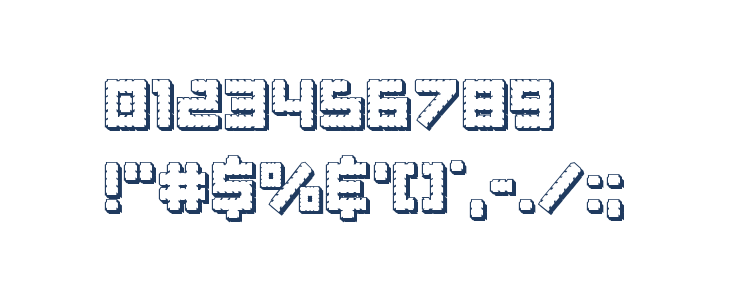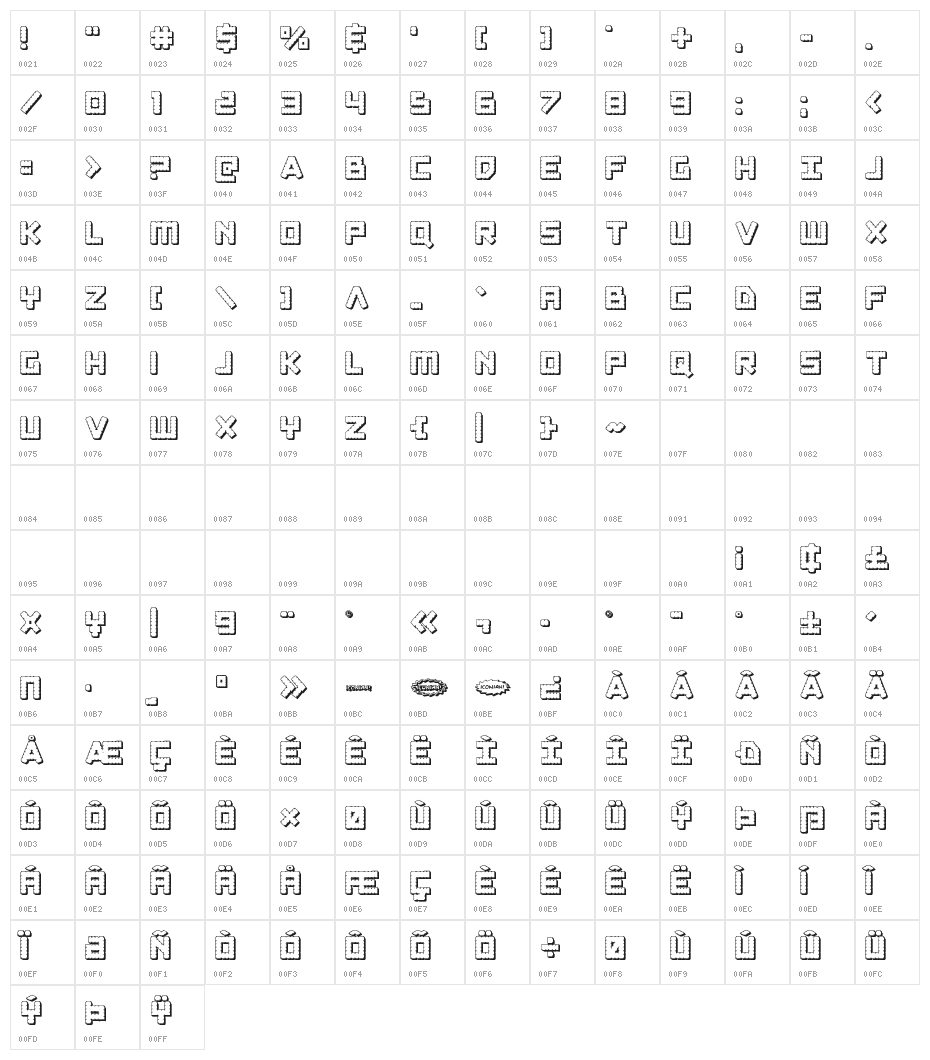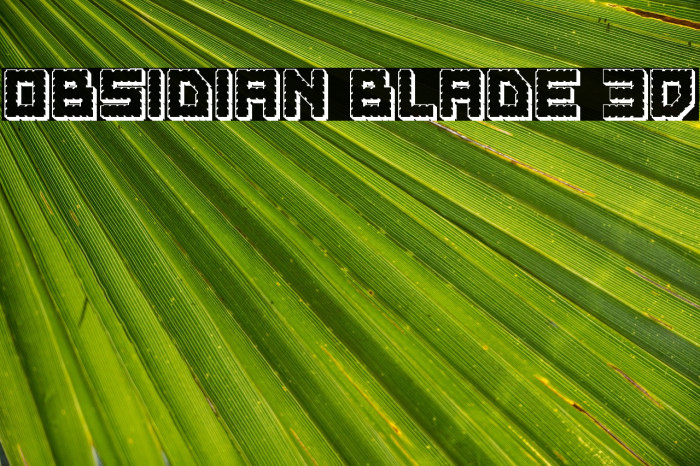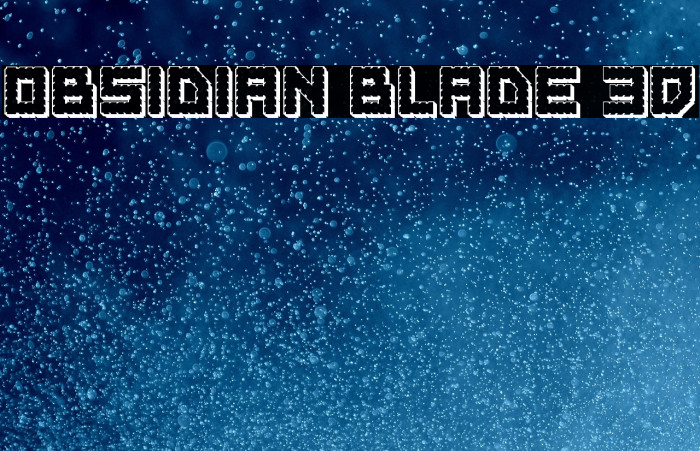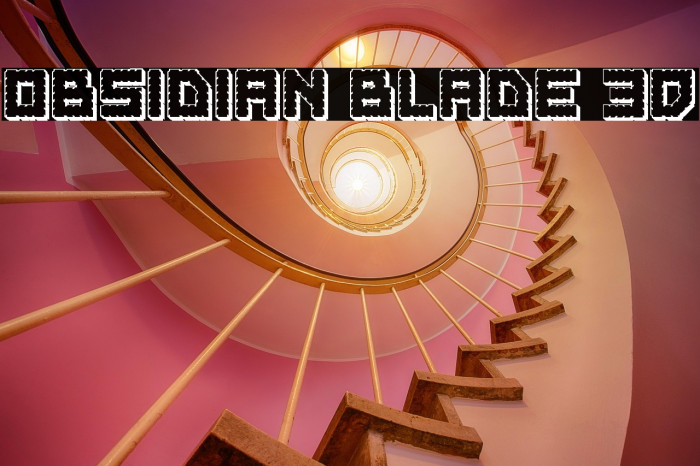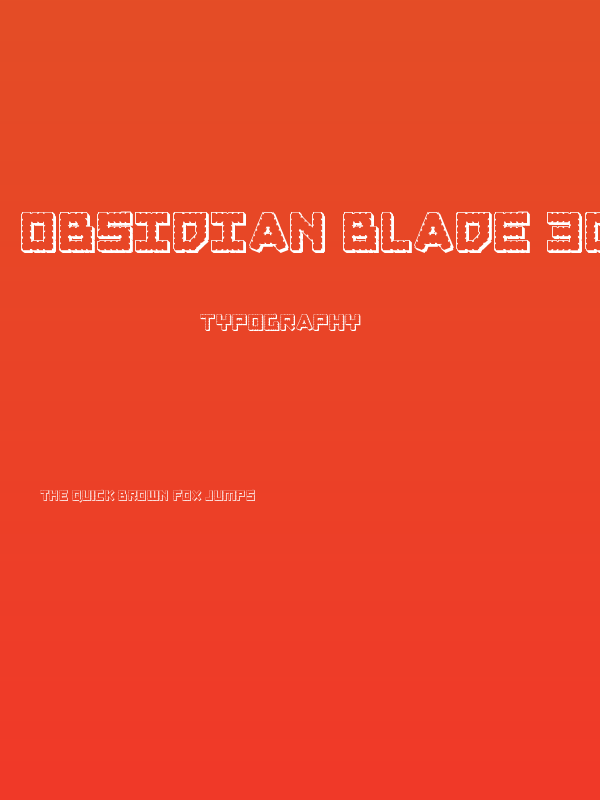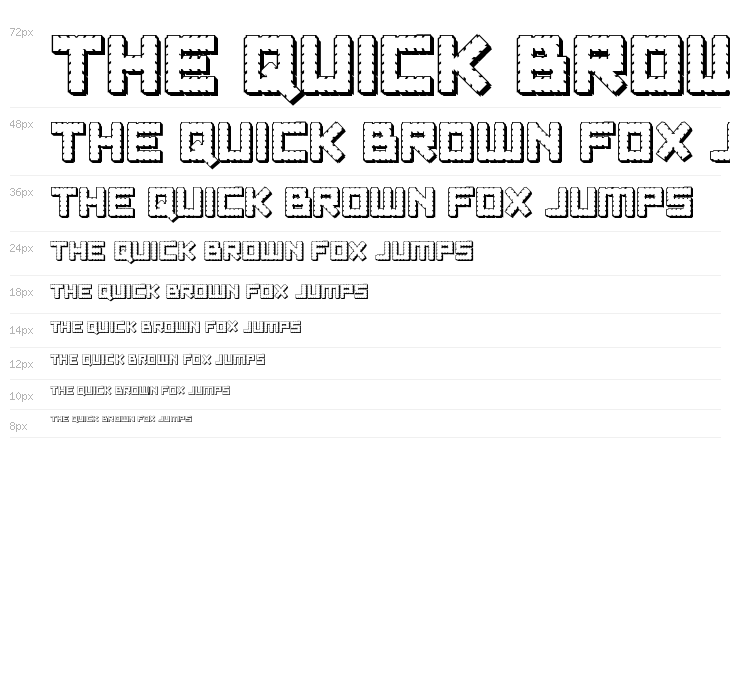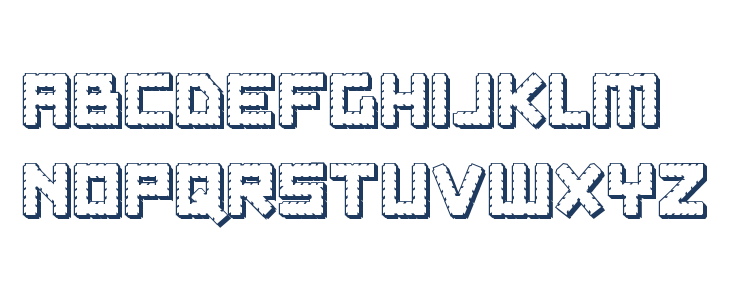
Obsidian Blade 3D Font
Obsidian Blade 3D Description
This font features a bold and edgy design with a 3D effect that gives each character a distinct, shadowed appearance. The letters are outlined with a thick border, creating a strong visual impact. The interior of each character has a textured pattern, resembling a blade or serrated edge, which adds depth and dimension. The uppercase and lowercase letters maintain a consistent style, while the numbers and special characters follow the same design principles, ensuring uniformity across all elements. This font's unique style makes it stand out, perfect for projects that require a bold statement.
| Overall Style | Modern, Edgy |
| Proposed Projects | Ideal for video game titles, movie posters, branding for edgy products, or any project needing a striking, modern look. |